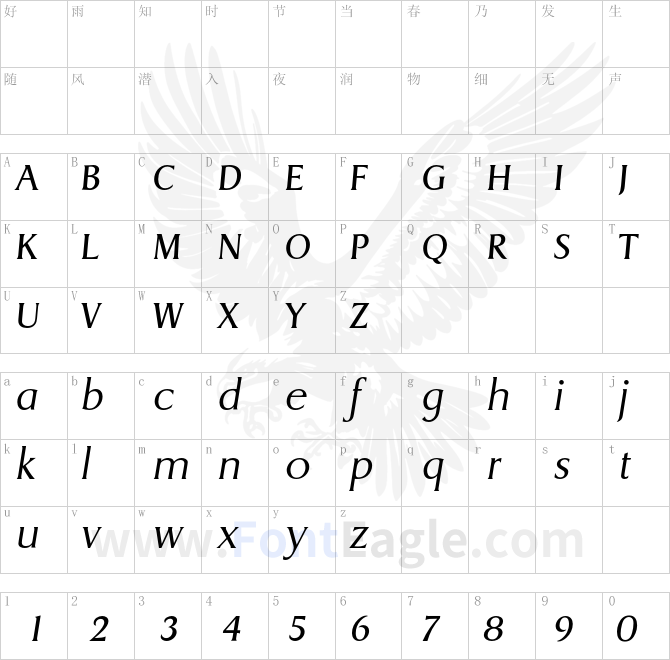
- Font name:DragonEF Light
DragonEF-LightItalic is a great font, widely used in graphic design, single-page menu design, poster design and other fields, and is deeply loved by designers.DragonEF-LightItalic download.